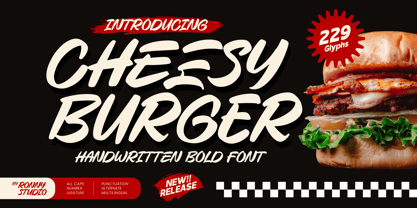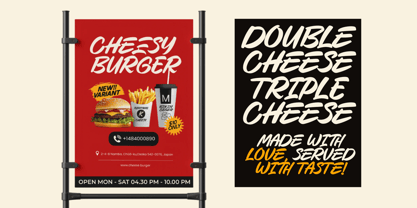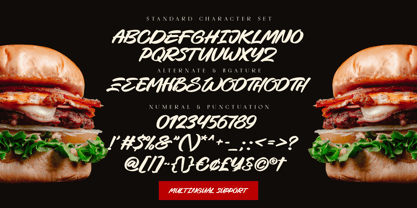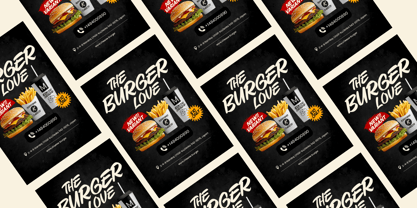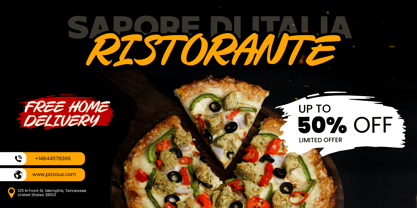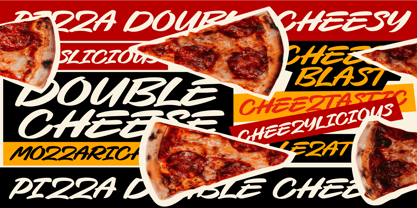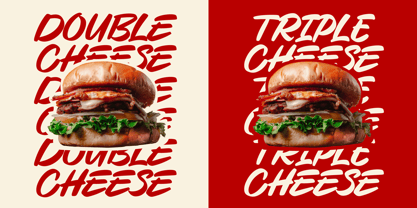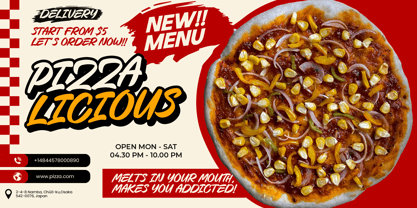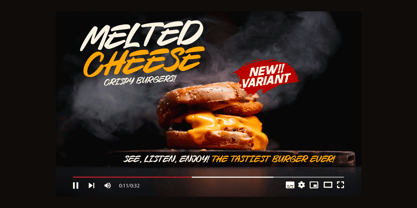
Cheesy Burger
by Ronny Studio
The Cheesy Burger Font Family was designed by Rony Rizki Jaya and published by Ronny Studio. Cheesy Burger contains 1 styles.
Cheesy Burger is a bold, playful, and energetic handwritten font inspired by the fun, juicy, and delicious vibe of food branding and casual typography. Designed for projects that need a fresh, friendly, and bold touch, this font is perfect for restaurant logos, food packaging, menus, advertising, posters, and social media branding.
Designers: Rony Rizki Jaya
Publisher: Ronny Studio
Foundry: Ronny Studio